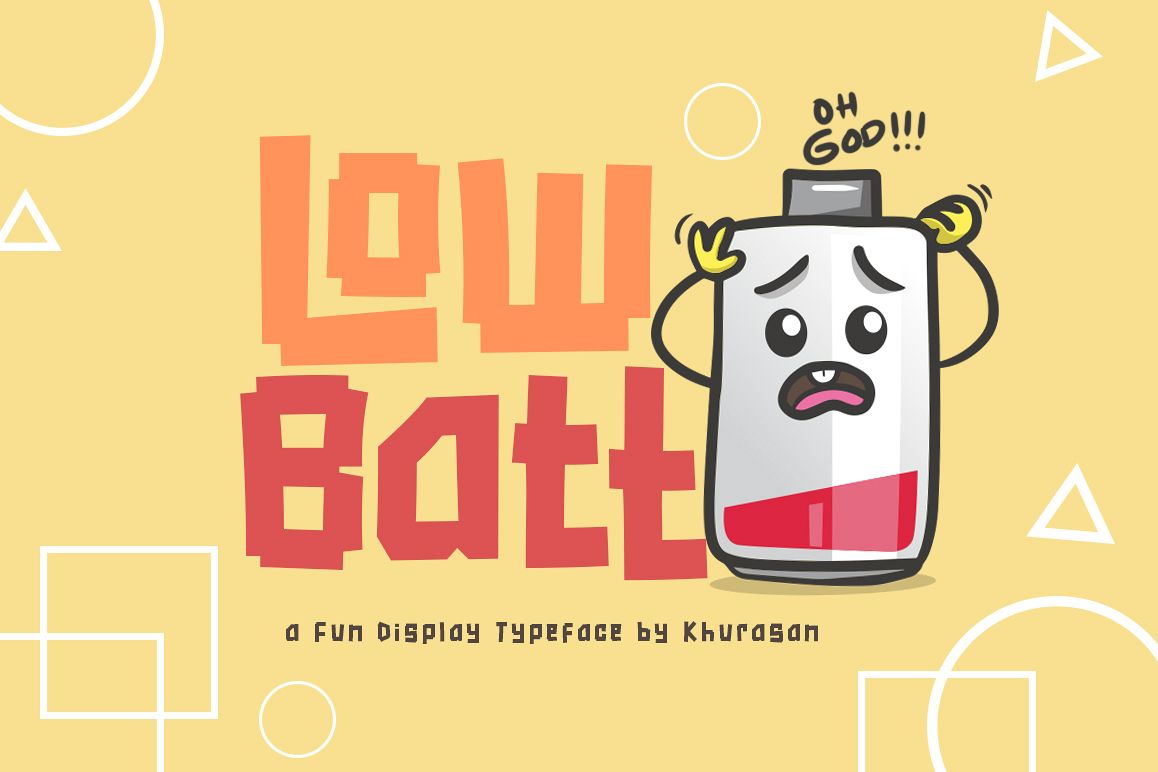
Introducing. The Low Batt font a bold display typeface awesome character. Low Batt font it’s perfect for namecard, poster, logo, magazine, cover, banner, tshirt and headers, or even large-scale artwork.